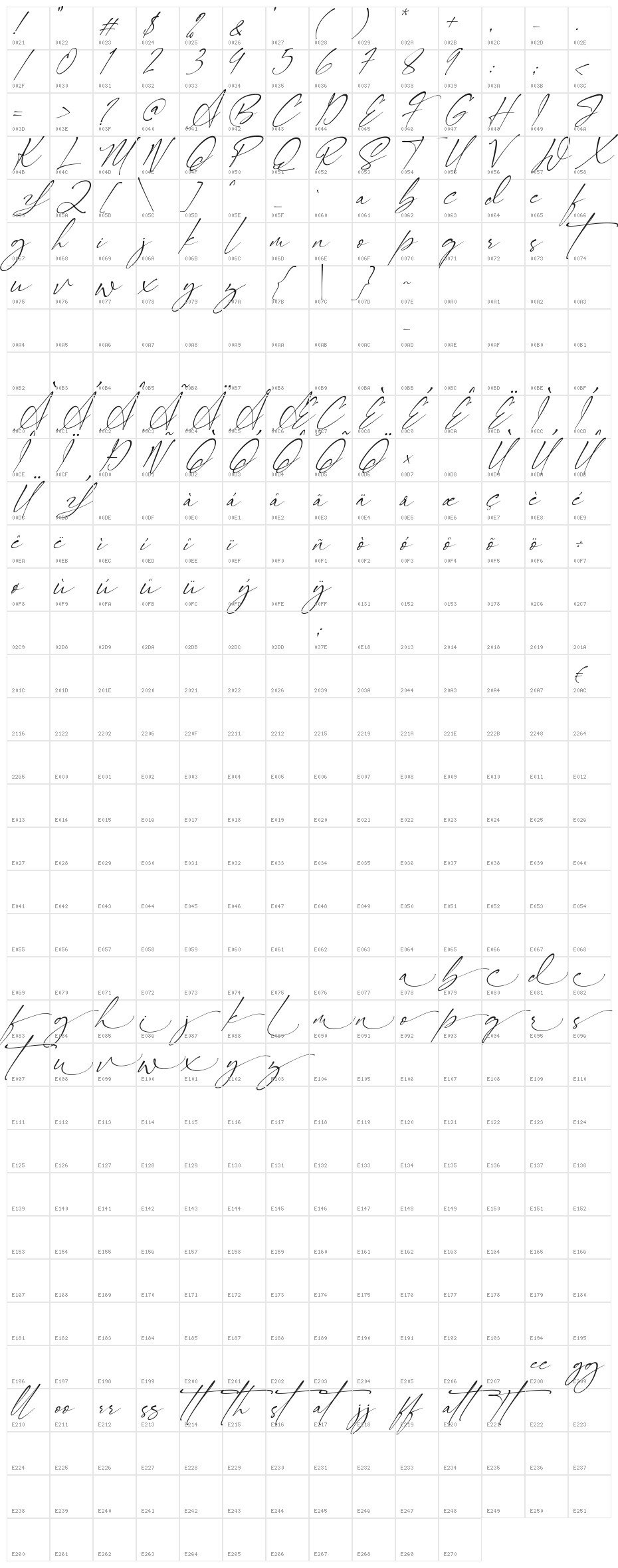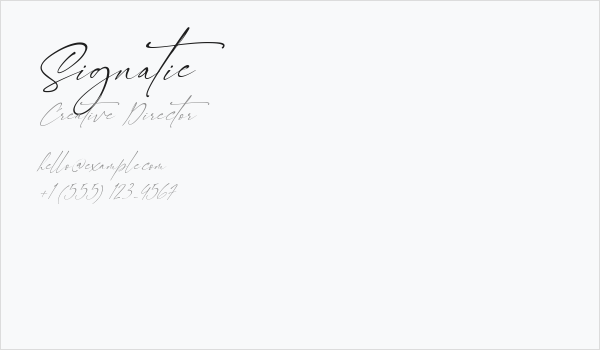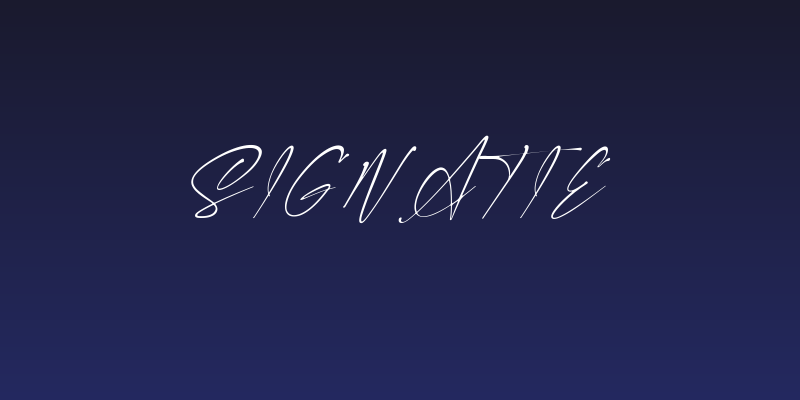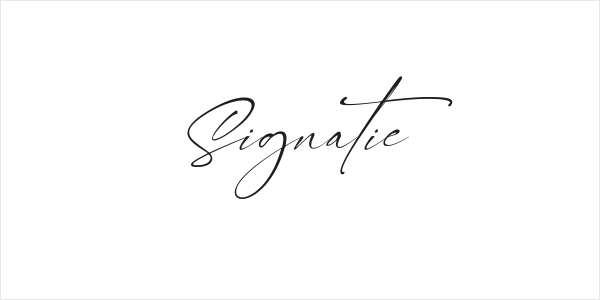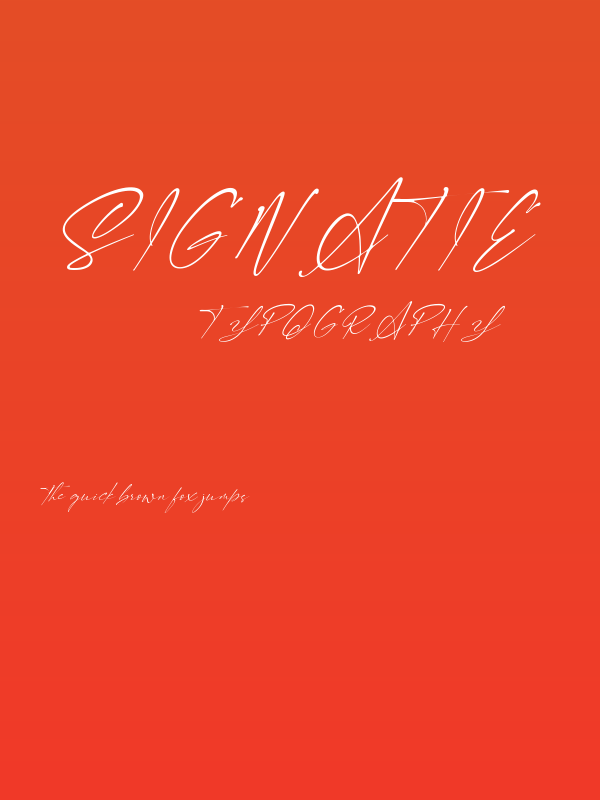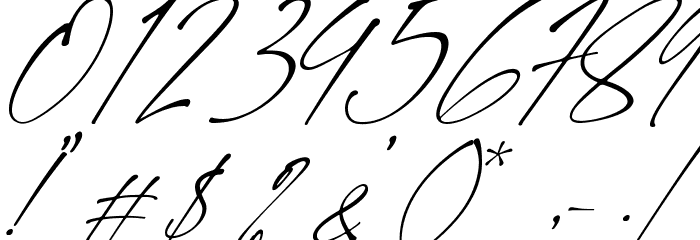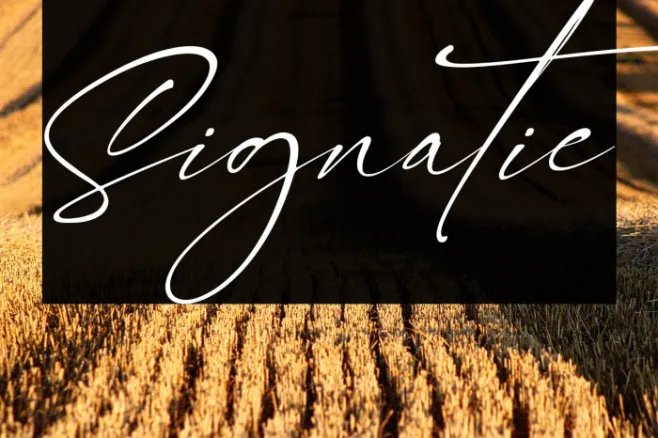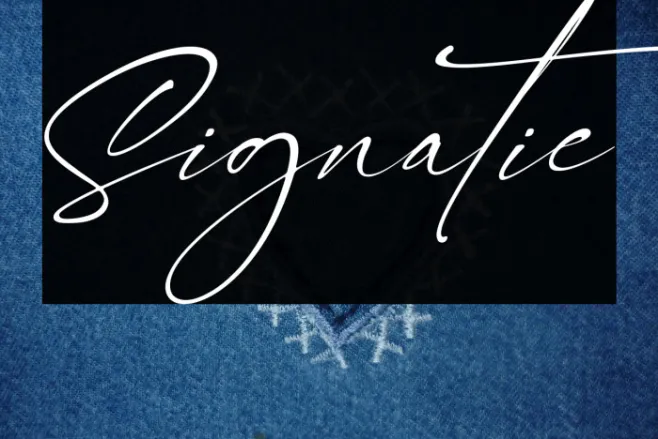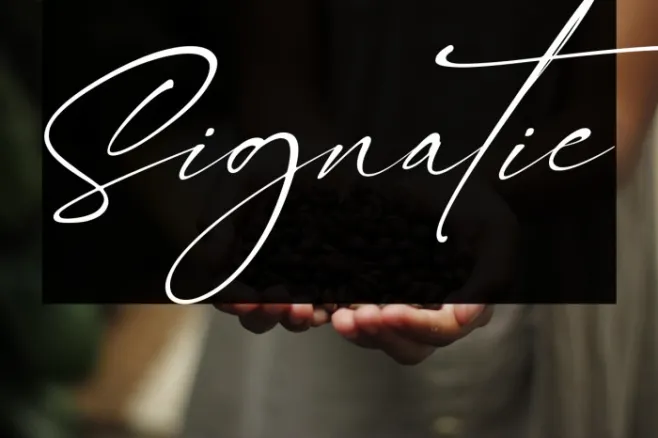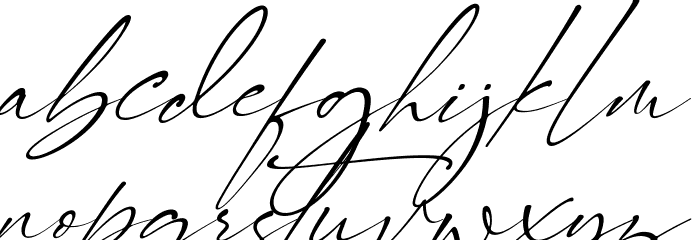
Signatie Font
Signatie Description
This elegant script font exudes a sense of sophistication and fluidity, characterized by its flowing, cursive strokes that mimic the natural motion of handwriting. The letters are interconnected, creating a seamless and continuous appearance that enhances its handwritten aesthetic. The uppercase letters are slightly more elaborate, with graceful loops and swirls, while the lowercase letters maintain a consistent rhythm and balance. The numerals and special characters are designed to complement the overall style, ensuring a cohesive look across all text elements. This font is perfect for adding a personal touch to any project, making it ideal for invitations, branding, and other creative endeavors.
| Proposed Projects | Ideal for wedding invitations, personal branding, greeting cards, and elegant packaging designs. |